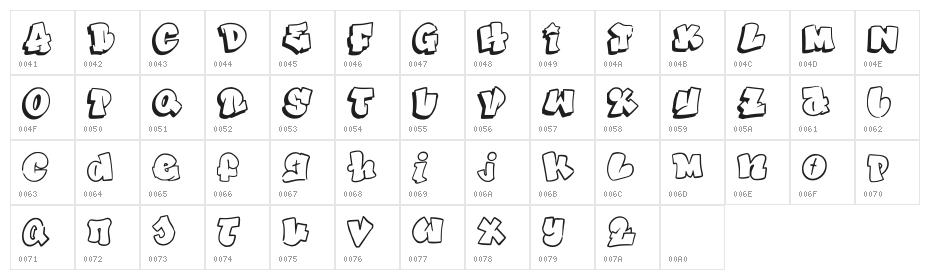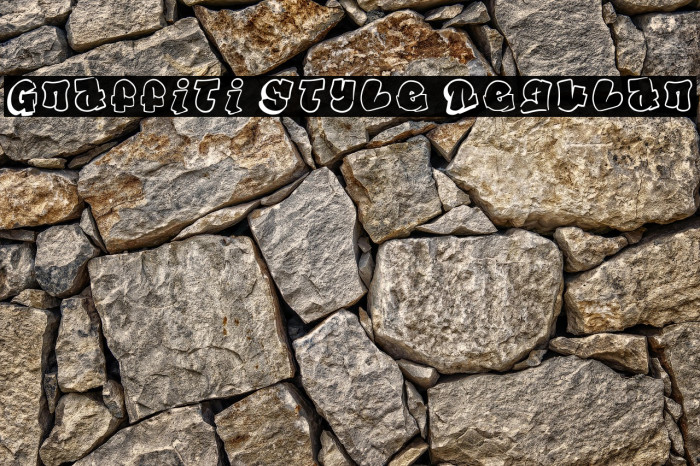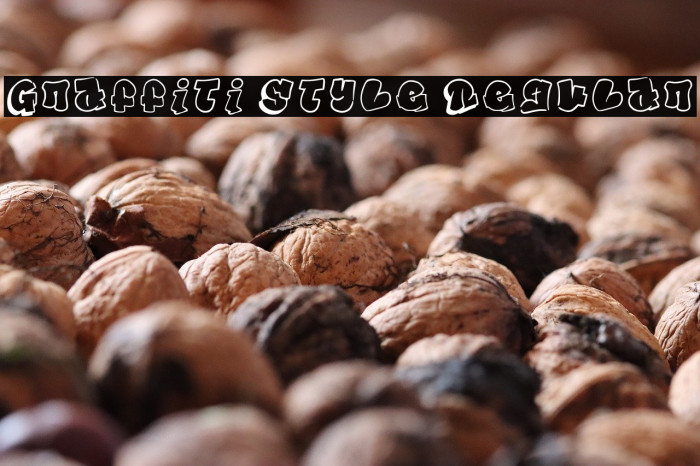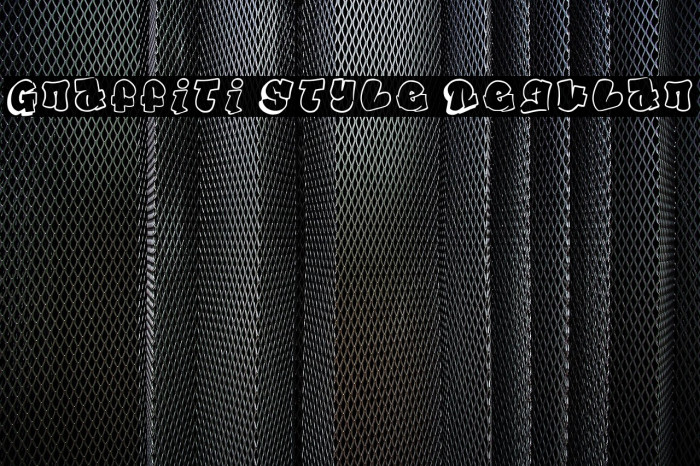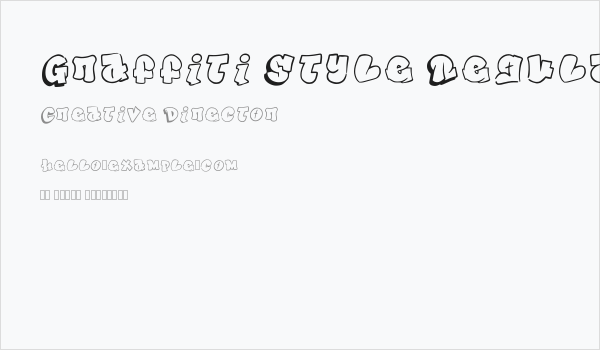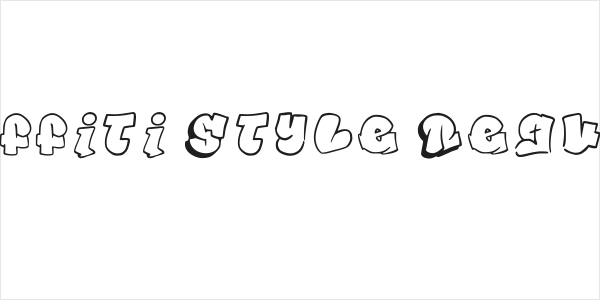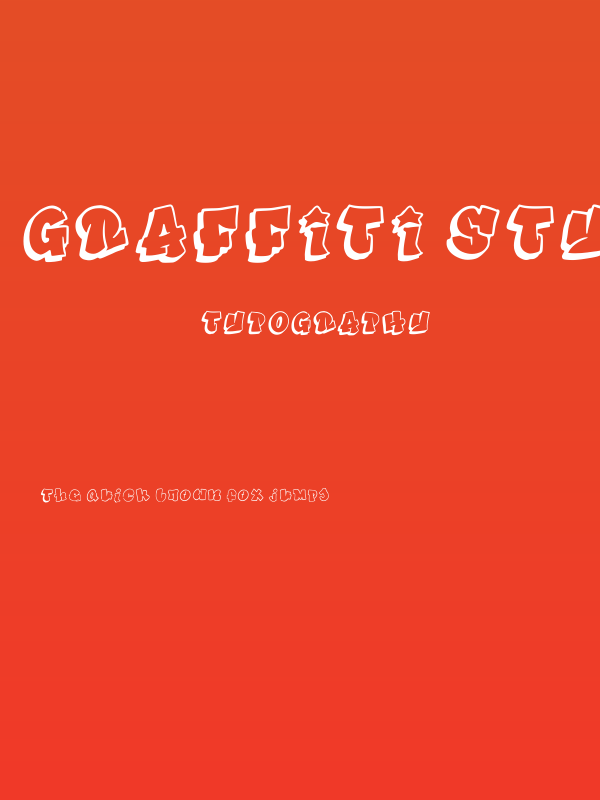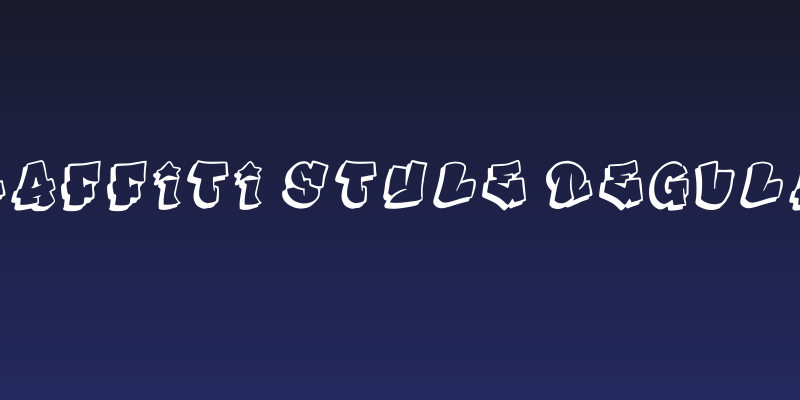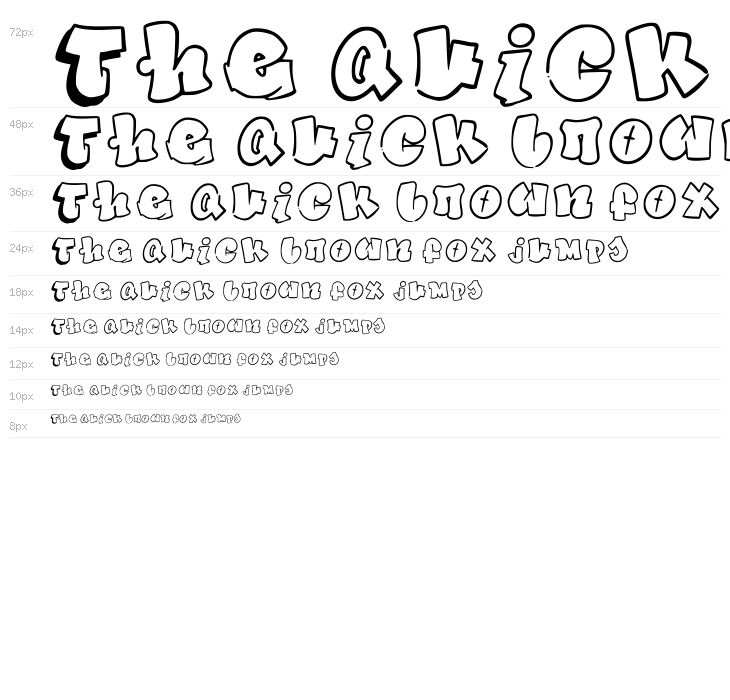
Graffiti Style Regular Font
Graffiti Style Regular Description
This font embodies a bold and dynamic graffiti style, characterized by its thick, angular strokes and playful, urban aesthetic. The letters are designed with a three-dimensional effect, giving them a sense of depth and movement. Each character is uniquely crafted, featuring sharp edges and a slightly irregular form that mimics the spontaneous nature of street art. The font's energetic and youthful vibe makes it ideal for projects that aim to capture attention and convey a sense of creativity and rebellion.
| Overall Style | Modern, Urban |
| Proposed Projects | Ideal for street art designs, urban-themed posters, music album covers, and youth-oriented branding. |